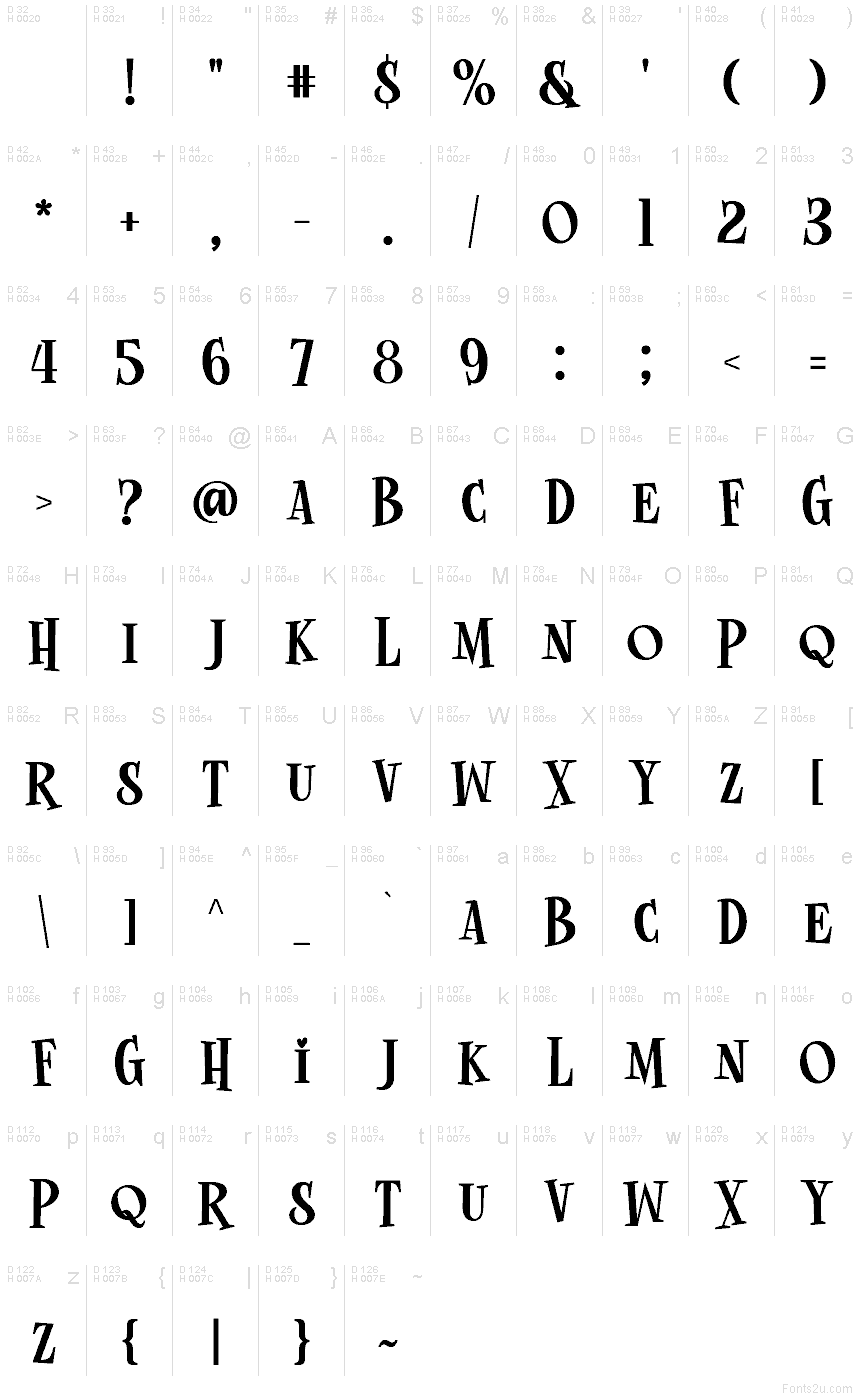
Spooky Midnight
Spooky Midnight font by keithzo is a free Halloween display font. Its tall, slightly crooked letterforms and thorny little serifs feel like candlelight flickering across old wood—uneasy, but readable. The strokes have a subtle wobble that adds creep without turning muddy, so headlines snap with a crisp, inky bite on posters, signs, and covers.
Using Spooky Midnight, you can dial up the chills on party invites, haunted house flyers, seasonal banners, trick‑or‑treat bag designs, YouTube thumbnails, and spooky stickers. The rhythm is tight, so give it a touch of letterspacing for breath at large sizes. Pair this free font with a plain, modern sans for body copy to let the title do the haunting.